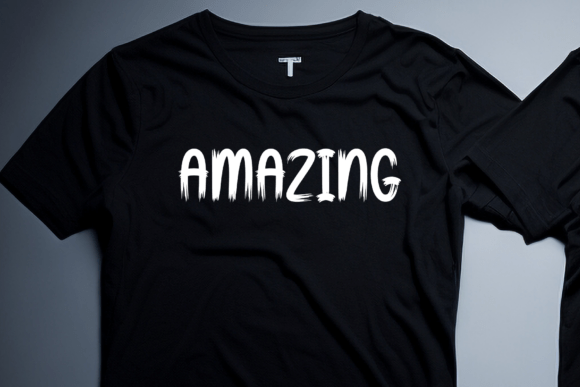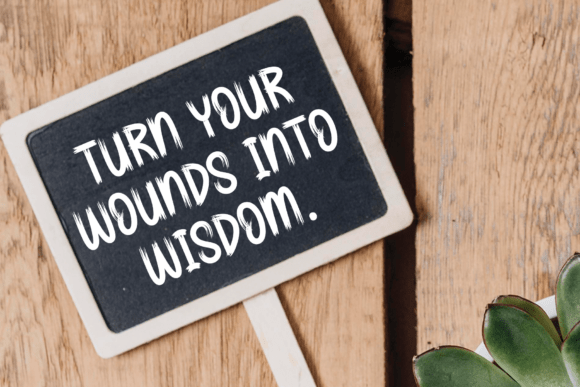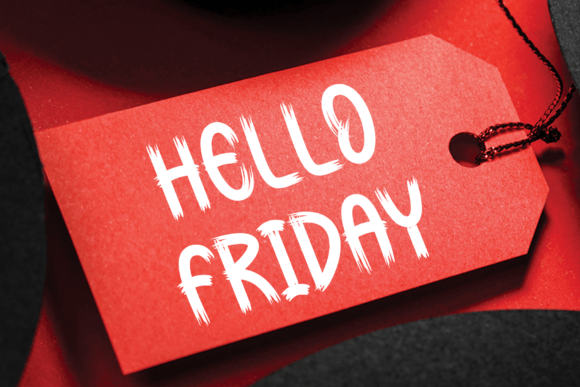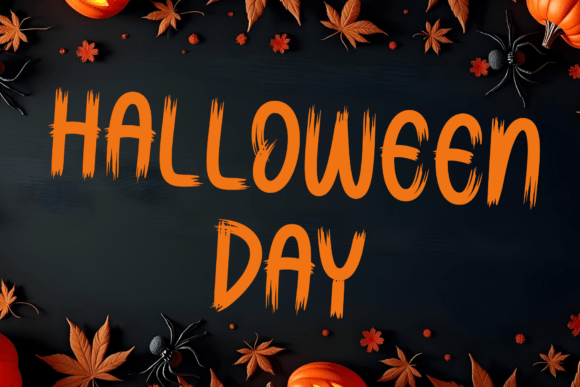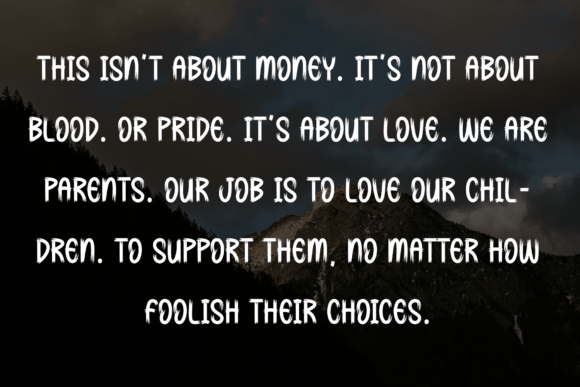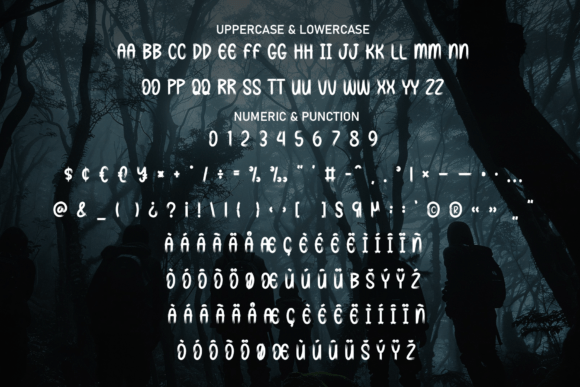
Introduction to Scary Hunter Font
Have you ever stared at a blank page, trying to come up with the perfect design for a wedding invitation or a birthday card, only to feel stuck and uninspired? We’ve all been there. But what if you had the perfect tool to bring your creative project to life? Enter the Scary Hunter Font, a delightful handwritten display font that’s sure to add a touch of whimsy and charm to any design.
This high-quality font is perfect for designers looking to add a personal touch to their work. With its transparent background and free download option, it’s an invaluable resource for any creative project. Whether you’re working on a design for a special occasion or just want to add a dash of personality to your brand, the Scary Hunter Font is sure to deliver. Its playful and sweet vibe makes it an instant favorite among designers, and its versatility means it can be used in a wide range of applications, from greeting cards to marketing materials.
Key Features of Scary Hunter Font
- High-quality design resource suitable for creative projects, including spooky and Halloween-themed designs.
- Features a transparent background, making it easy to integrate with other design elements and backgrounds.
- Designed with a unique, bold style that adds a touch of eeriness to any design, perfect for creating a spooky atmosphere.
- Perfect for designers and artists looking for a unique and free design resource to enhance their creative projects.
Honest Review: Scary Hunter Font
As a designer, I’m always on the lookout for high-quality design resources that can elevate my creative projects. The Scary Hunter Font is one such resource that caught my attention. This font has a unique, spooky vibe that’s perfect for Halloween-themed designs or any project that requires a touch of eeriness.
- Unique, spooky design aesthetic
- Limited font styles and weights available
- Not suitable for all design projects (e.g., corporate, formal designs)
Overall, I’m impressed with the Scary Hunter Font. While it may have some limitations, its unique design aesthetic and versatility make it a valuable addition to any designer’s toolkit. If you’re looking for a high-quality, free design resource for your creative project, the Scary Hunter Font is definitely worth checking out.
How to Use Scary Hunter Font
Introduction to Scary Hunter Font
The Scary Hunter Font is a unique design resource that can elevate your creative project with its high-quality, spooky aesthetic. This font is perfect for designers looking to add a touch of eeriness to their work.
Tips for Getting the Most Out of Scary Hunter Font
To get the most out of the Scary Hunter Font, try the following:
- Combine the font with a transparent background for a haunting effect.
- Use the font in conjunction with other design elements, such as images or graphics, to create a cohesive design.
Common Use Cases for Scary Hunter Font
The Scary Hunter Font is perfect for:
- Spooky-themed designs, such as Halloween posters or haunted house invitations.
- Creepy or mysterious designs, such as horror movie posters or supernatural-themed graphics.
- Any design project that requires a touch of eeriness or spookiness.
Q: Is the Scary Hunter Font a high-quality design resource?
Yes, the Scary Hunter Font is a high-quality design resource, carefully crafted to provide a unique and creative touch to your projects. With its unique design and transparent background, it’s an excellent choice for designers looking to add a little extra flair to their work.